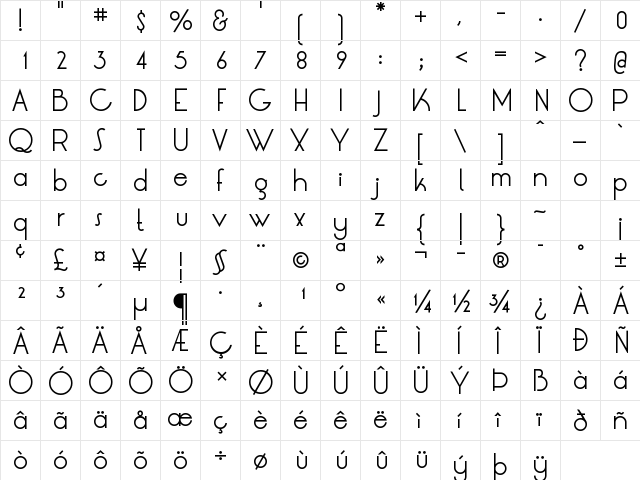
LRT Oksana Regular
| Designer | Lauren Thompson |
Design Context for LRT Oksana Typeface
LRT Oksana is a composed and adaptable typeface that performs quietly and consistently across a wide range of design contexts.